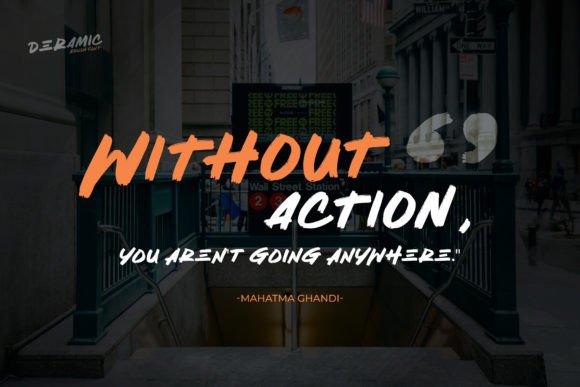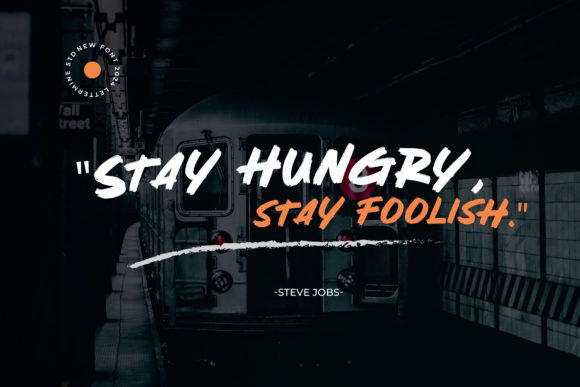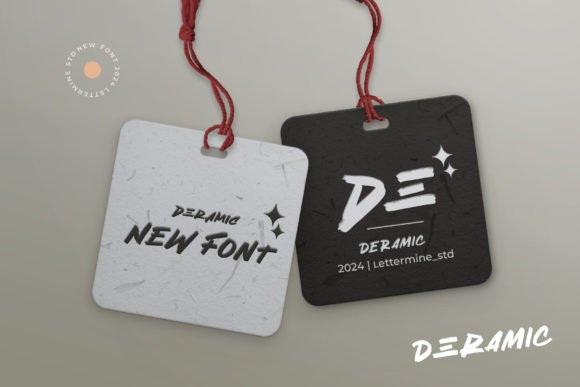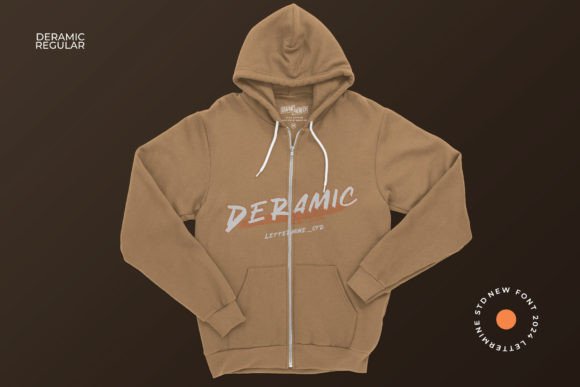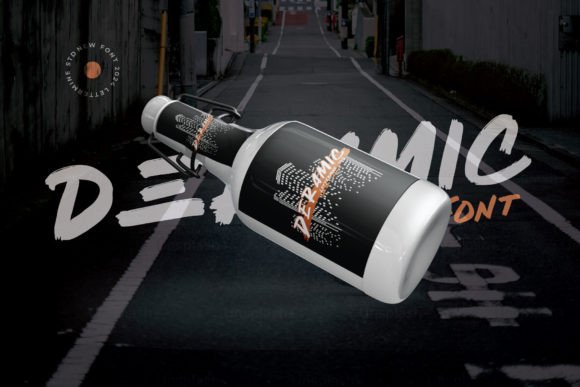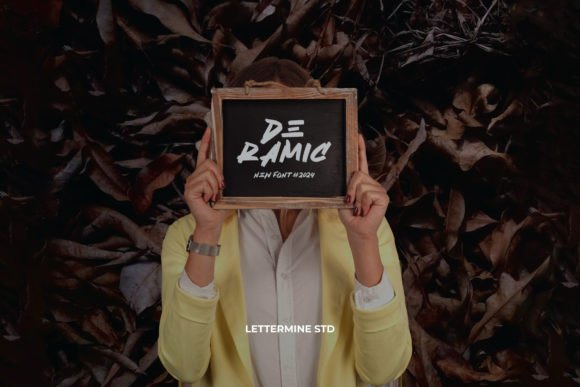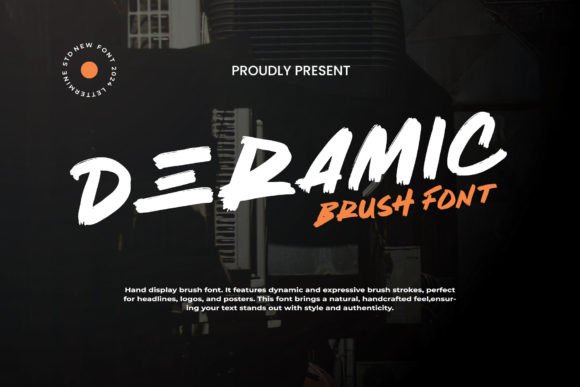
Introducing Deramic Font: The Ultimate Choice for Bold and Timeless Designs
Are you a designer or crafter looking for a font that can elevate your creative projects to the next level? Look no further than Deramic Font, a bold and timeless handwritten font that is perfect for creating eye-catching logos, branding, and quotes. With its unique and beautiful touch, Deramic Font is sure to make your design come alive!
The Characteristics of Deramic Font
Deramic Font is a carefully crafted handwritten font that boasts a bold and timeless aesthetic. Its unique characteristics make it an ideal choice for designers and crafters who want to add a personal touch to their projects. Here are some of the key features that set Deramic Font apart:
- Bold and Timeless: Deramic Font has a bold and timeless quality that makes it perfect for creating eye-catching designs. Its classic look and feel will never go out of style, ensuring that your designs remain relevant for years to come.
- Handwritten with Love: Deramic Font is a handwritten font that is crafted with love and care. Every letter is carefully designed to have a unique and beautiful touch, making it perfect for creating personal and emotive designs.
- Unique and Beautiful: One of the standout features of Deramic Font is its unique and beautiful touch. Every letter is designed to be distinct and eye-catching, making it perfect for creating designs that stand out from the crowd.
Uses of Deramic Font
Deramic Font is a versatile font that can be used for a wide range of design projects. Here are some of the most popular uses of Deramic Font:
- Logo Design: Deramic Font is perfect for creating eye-catching logos that make a lasting impression. Its bold and timeless aesthetic makes it ideal for businesses and brands that want to establish a strong visual identity.
- Branding: Deramic Font can be used to create a consistent visual brand identity across various platforms. Its unique and beautiful touch makes it perfect for creating brand guidelines, packaging, and marketing materials.
- Quotes and Typography: Deramic Font is also great for creating inspirational quotes, typographic posters, and other text-based designs. Its bold and timeless aesthetic makes it perfect for creating designs that are both visually striking and emotive.
Why Choose Deramic Font?
So, why should you choose Deramic Font for your design projects? Here are some compelling reasons:
- Easy to Read: Deramic Font is designed to be easy to read, making it perfect for creating designs that are both visually striking and legible.
- Highly Versatile: Deramic Font can be used for a wide range of design projects, from logos and branding to quotes and typography.
- Unique and Beautiful: Deramic Font has a unique and beautiful touch that sets it apart from other fonts. Its bold and timeless aesthetic makes it perfect for creating designs that stand out from the crowd.
Tips for Using Deramic Font
Here are some tips for using Deramic Font in your design projects:
- Experiment with Colors: Deramic Font looks great in a variety of colors, so don’t be afraid to experiment and find the perfect color scheme for your design.
- Play with Sizes: Deramic Font can be used at a variety of sizes, from large headings to smaller body text. Experiment with different sizes to find the perfect fit for your design.
- Pair with Other Fonts: Deramic Font can be paired with other fonts to create a unique and visually striking design. Experiment with different font combinations to find the perfect pairing.
In conclusion, Deramic Font is a bold and timeless handwritten font that is perfect for creating eye-catching logos, branding, and quotes. Its unique and beautiful touch makes it a standout choice for designers and crafters who want to add a personal touch to their projects. With its versatility, ease of use, and bold aesthetic, Deramic Font is sure to become a favorite in your design arsenal.